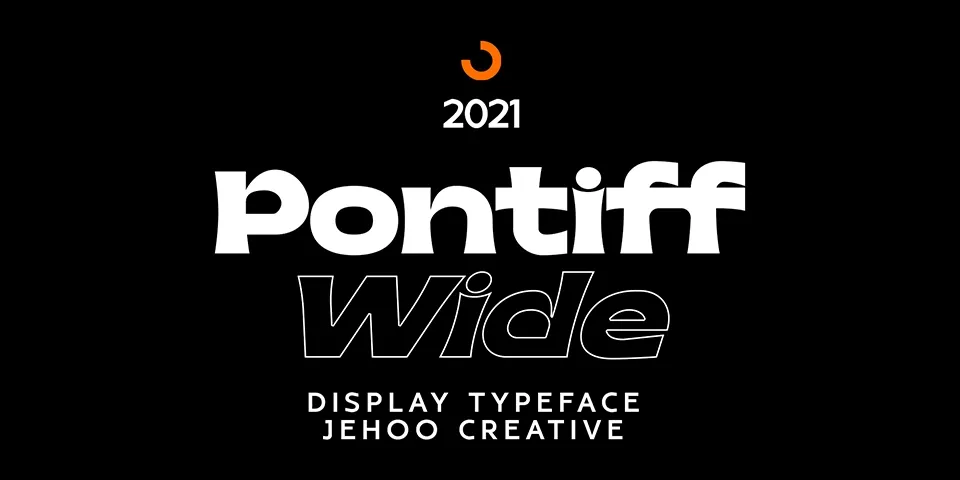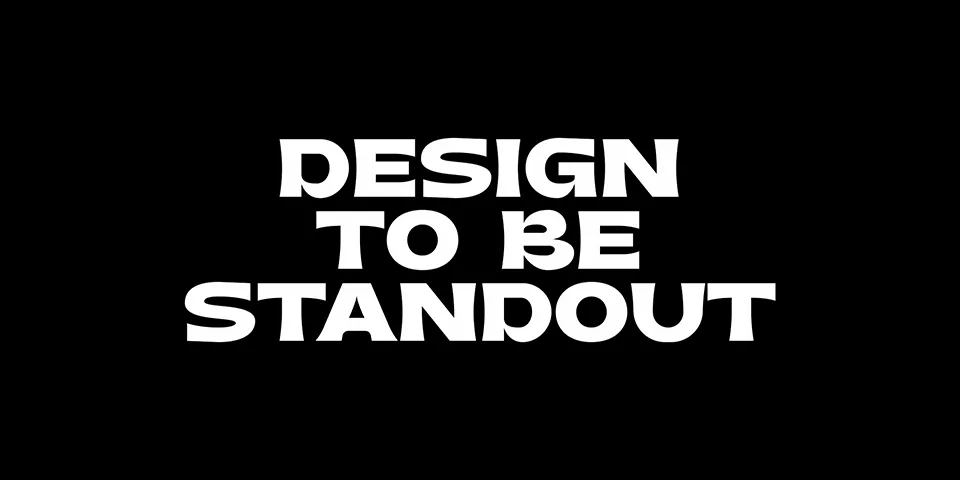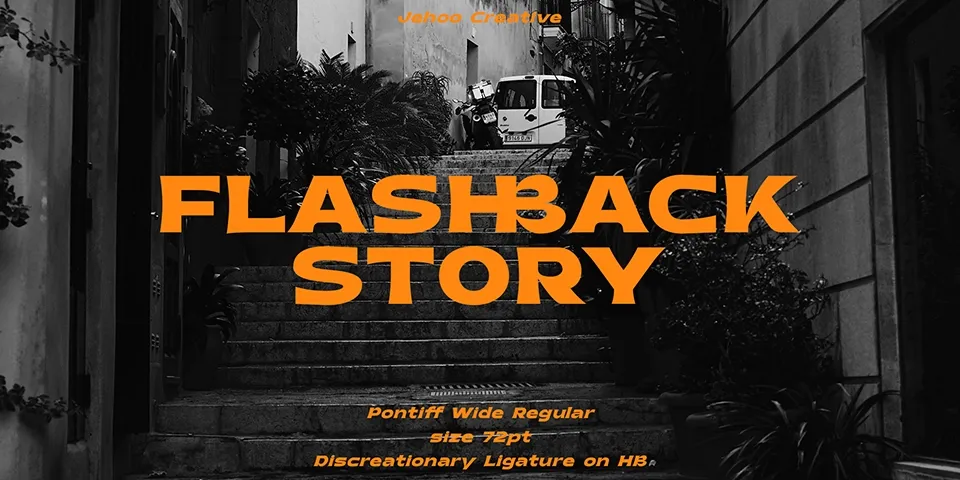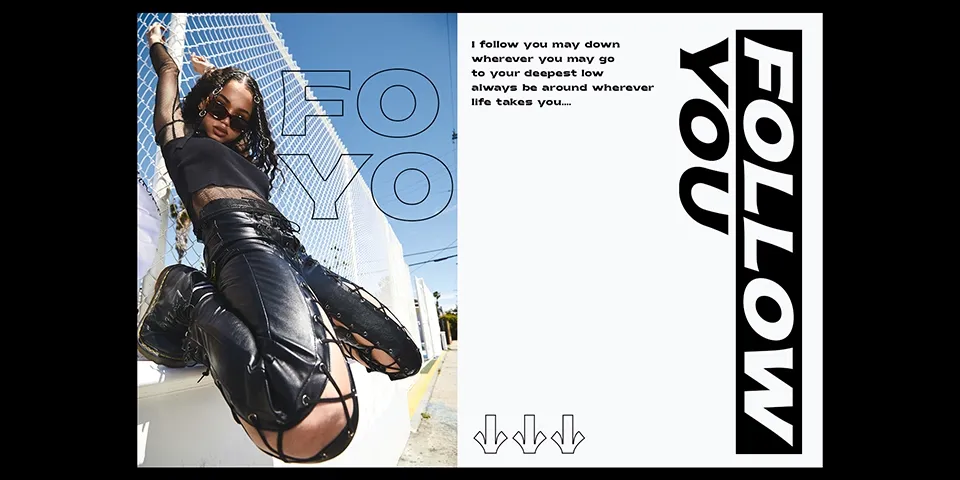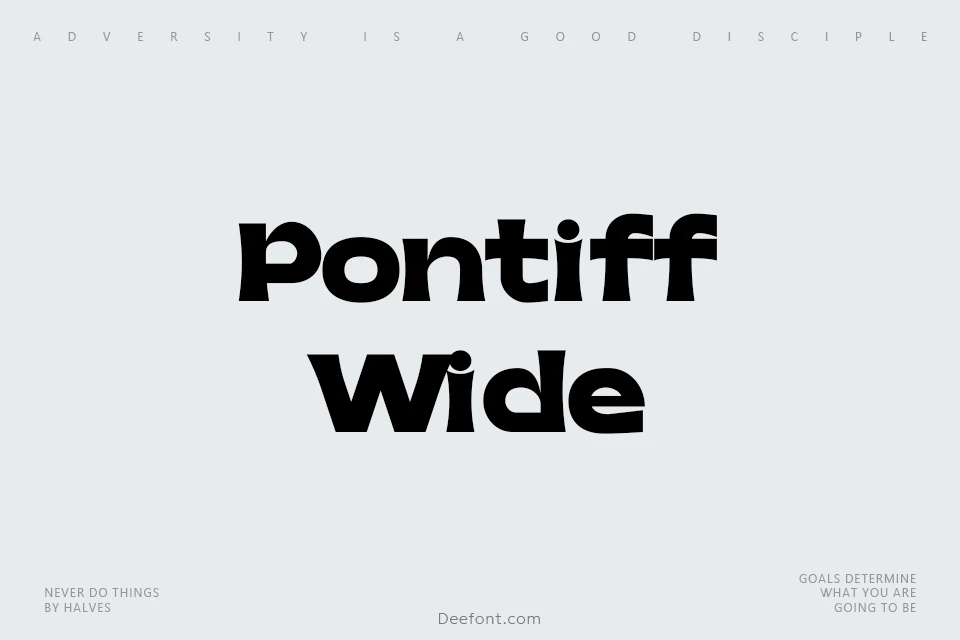
Pontiff Wide Font
Pontiff Wide Font, designed by Anwar Patihan of Jehoo Creative, is a striking display typeface created to make a bold statement. It features sharp edges and a distinctly wide structure, contributing to its standout, neo-vintage appearance. Ideal for impactful headlines and titles, Pontiff Wide commands attention and is perfect for giving bold impressions. The full font family offers four styles: Regular, Italic, Outline, and Outline Italic, providing design flexibility for more standout designs. A free weight is generously offered for both personal and commercial use, making its unique style accessible for various projects.